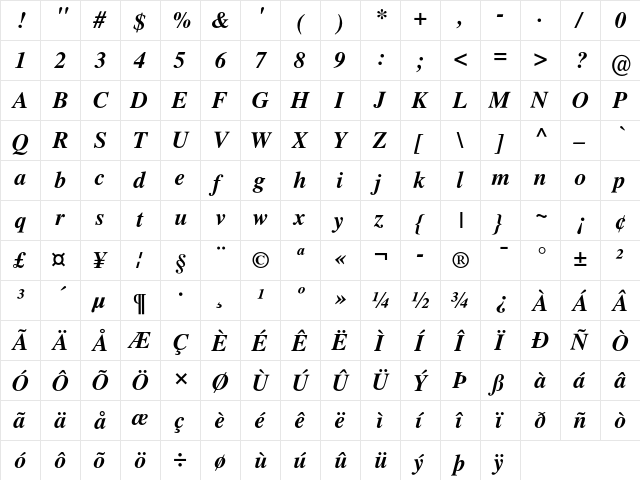
Nimbus Roman No9 L Bold Italic Font Preview
Design Context for Nimbus Roman No9 L Typeface
Nimbus Roman No9 L takes a measured approach to typography — its balanced proportions and neutral character make it a reliable workhorse for both digital and print work. Its italic angle brings a sense of urgency and motion to the letterforms. The heavy weight commands attention and anchors typographic hierarchies.
Pro Tip: Try Nimbus Roman No9 L for annotation and caption copy alongside an upright companion — the contrast in angle creates a dynamic but ordered typographic system.